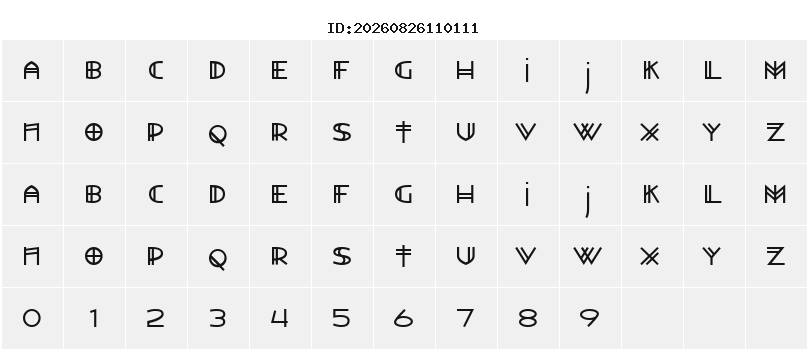
Watertown Alternate Preview
• Font Name: Watertown Alternate
• Full Font Name: Watertown Alternate
• Designer: Ethan Dunham
• Manufacturer: Fonthead Design Inc.
About Watertown Alternate.ttf
Watertown Alternate.ttf is a modern, elegant sans-serif font designed for ultimate readability and visual harmony. Perfect for branding, headlines, web design, and print materials.